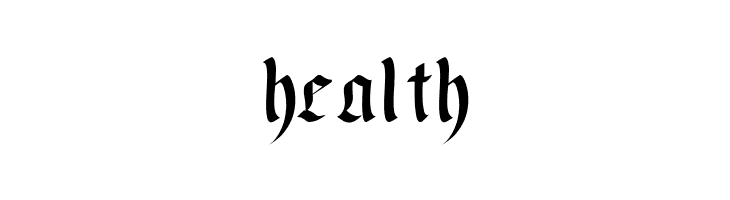
A bold, high-contrast font with a modern and slightly condensed style.
A bold, angular font inspired by ancient runic alphabets.
An artistic, italicized font with flowing, dynamic letterforms.
A bold, gothic-style font with sharp, angular lines and an inline design.
A playful, handwritten font with fluid strokes and a casual style.
A bold, condensed, and modern font with a strong vertical emphasis.
An elegant script font with ornate uppercase and smooth cursive lowercase letters.
A modern, light sans-serif font with clean lines and excellent readability.
A playful, bold font with rounded, bubbly characters.
A playful, bold script font with a handwritten style and decorative loops.